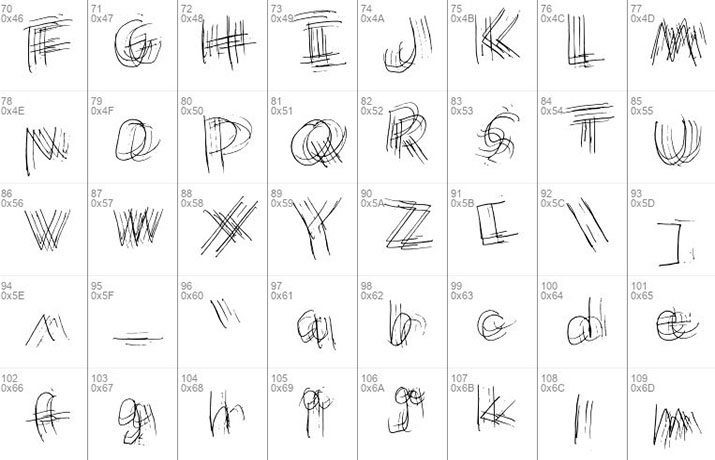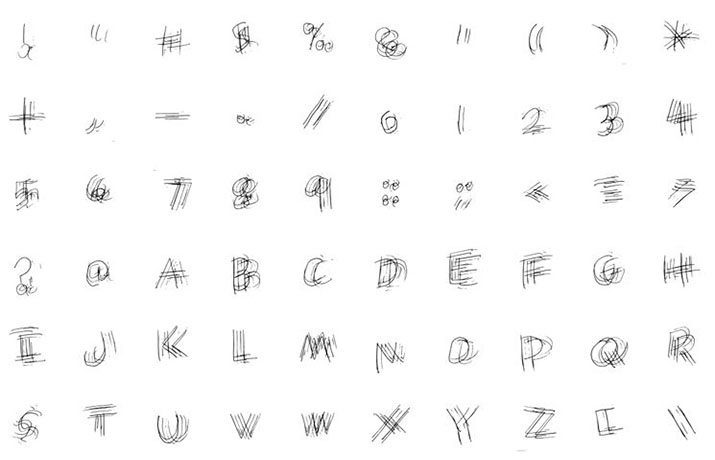
Messy Marvin Font is a handwritten typeface with all the right elements to make it the perfect pencil font. It was designed and shared by Marcus Melton.
The letters have unique scribble strokes that look like each character was designed by hand with a pencil. it gives a majestic and cool look throughout the typeface.
This unique font is a good choice for designing titles and text for everything from children’s books to social media posts, headers, packaging designs, and much more.
“Messy Marvin typeface comes in two unique styles with True Type file format. This font family contains 104 glyphs including uppercase & lowercase letters, numbers, symbols, and few punctuation marks.”
- Its unique texture makes it suitable for a wide range of notable applications including book covers, niche quotes, gaming graphics, book covers, greeting/wedding cards, signs, banners, invitations, birthday cards, headers, letterhead, signage, labels, news, posters, beautiful cards, and product design and packaging.